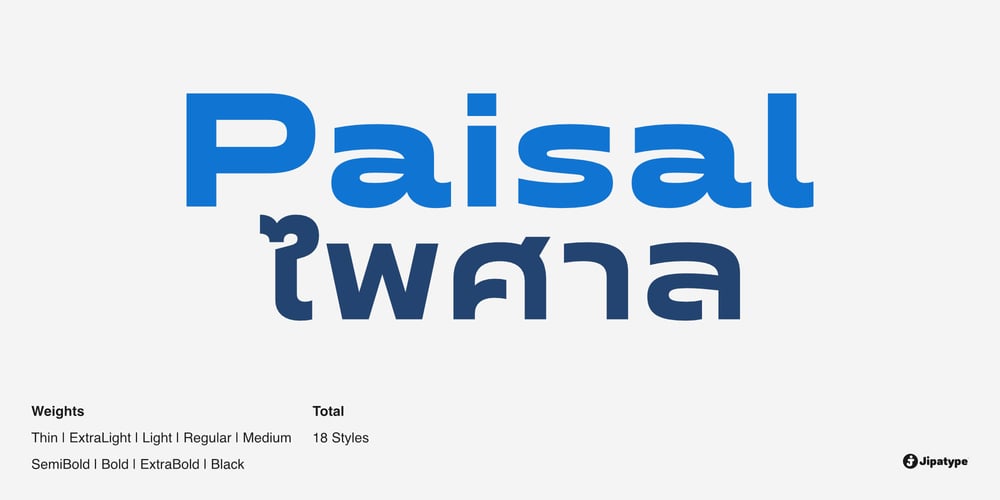
Paisal
Paisal font
Paisal Font Family was designed by Anupap Jaichumnan and published by Jipatype. Paisal contains 18 styles and family package options. Paisal is a sans-serif typeface with exceptional width compared to Jipatype’s previous works. It has been designed to present an overall simple and modern aesthetic. This typeface comprises 18 styles, ranging from the thinnest to the boldest weights, supporting both Latin-1 and Thai character sets.Paisal is suitable for various publications in both digital and print media. Furthermore, it can be applied to diverse design projects, such as advertising billboards, headlines, and other design applications.